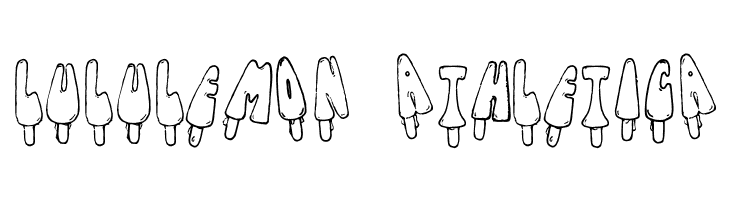
Soldado Sangriento Font
- Font: Soldado Sangriento
( Fonts by Anke Arnold - www.anke-art.de )
A playful, popsicle-themed decorative font with a hand-drawn, cartoonish style.